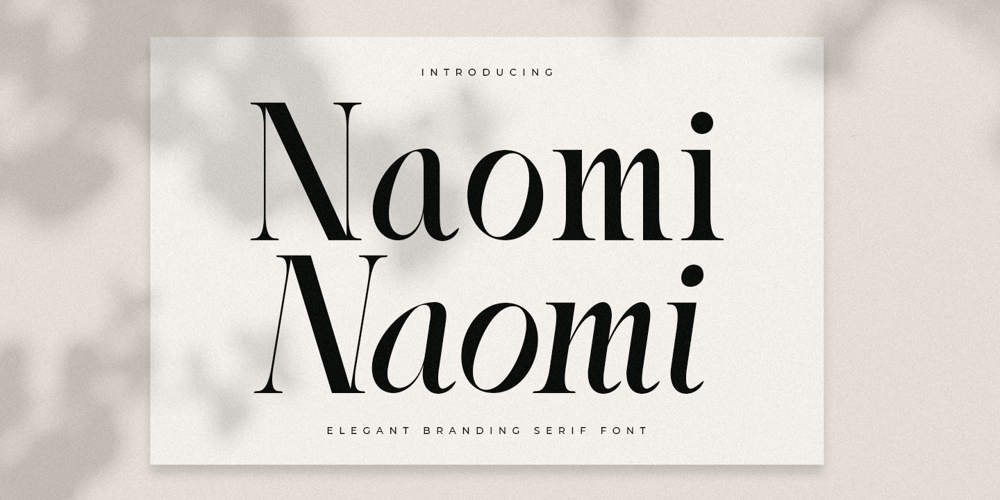
Naomi Style Font Family was designed by Zamroni Hamzah and published by Sensatype Studio. Naomi Style contains 2 styles and family package options. A Serif font that we created special for elegant branding needs, with extra ligature and alternates in unique shape will be ready to add value of your brand. It so nice to leverage designer or product owner that need solutions to make their design look more stylish and modern. And specially for Naomi font, We prepared any ligatures characters to help you create unlimited variations for your creative needs.Naomi Serif font ready with: Ready with Regular and Italic version Preview as a inspirations that you can do with Naomi font Ready with Lowercase and Uppercase characters Wish you enjoy our font. ๐